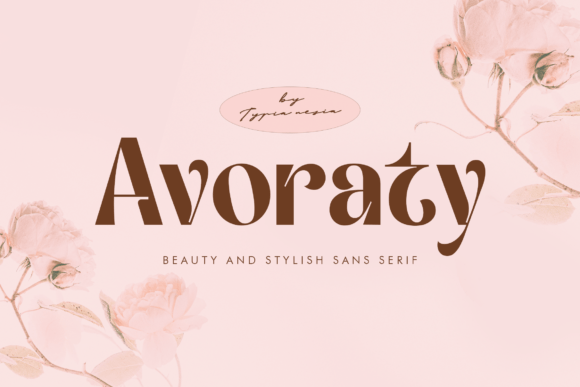
Introducing Avoraty Font, the ultimate choice for the perfect typography design. Created by the renowned Typia Nesia, this font is a modern, beautiful, and elegant sans serif that will elevate your beauty logo and branding to new heights. Say goodbye to mundane fonts and embrace the expressive and feminine appeal of Avoraty.
Avoraty is designed with meticulous attention to detail, making it the best font for beauty logos. Its aesthetic charm will captivate your audience, leaving a lasting impression. With its stunning alternates and ligatures, you have the power to create a truly unique and personalized typography design that sets your brand apart from the competition.
This versatile font is not limited to beauty logos alone. Avoraty is a versatile tool that can be used for a wide range of projects. From classy editorial designs to woman magazines, cosmetic brands to fashion promotions, art gallery branding to museum exhibits, boutique branding to stationery designs, Avoraty is the perfect choice to add a touch of sophistication to your creations.
Imagine the impact Avoraty can have on your blog design or modern advertising campaigns. Its elegant strokes and graceful curves will effortlessly draw attention and enthrall your readers. Whether it's a card invitation, art quote, home decor, or book/cover title, Avoraty will transform your projects into works of art.
Avoraty goes beyond the ordinary font. It is a font that evokes emotions, a font that tells a story. It embodies the essence of luxury and refinement, making it ideal for special events and high-end branding. Let Avoraty be the voice of your brand, conveying the message of elegance, grace, and sophistication.